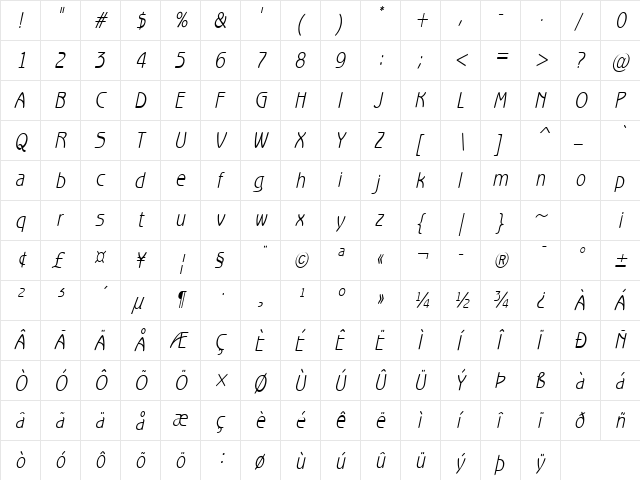
Beagle-Condensed Italic Font Preview
Design Context for Beagle-Condensed Typeface
Beagle-Condensed takes a measured approach to typography — its balanced proportions and neutral character make it a reliable workhorse for both digital and print work. The dynamic lean of this cut emphasises speed and emphasis in any layout. The condensed width makes it efficient for tight spaces without sacrificing legibility.
Pro Tip: Use Beagle-Condensed for emphasis, pull quotes, and subheadings where its slanted energy can add rhythm to the layout.